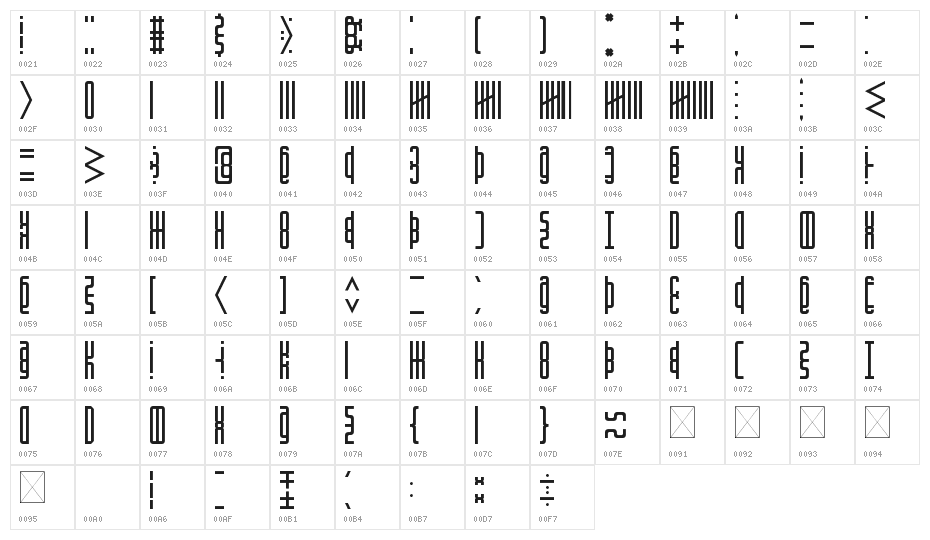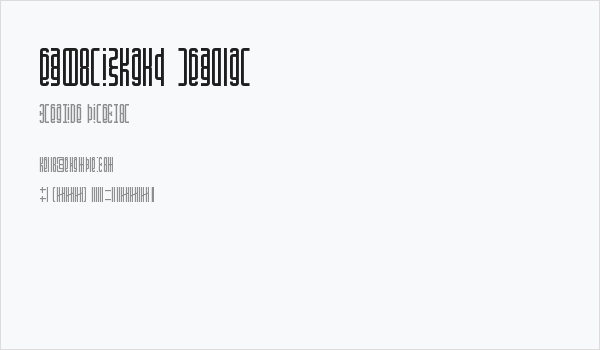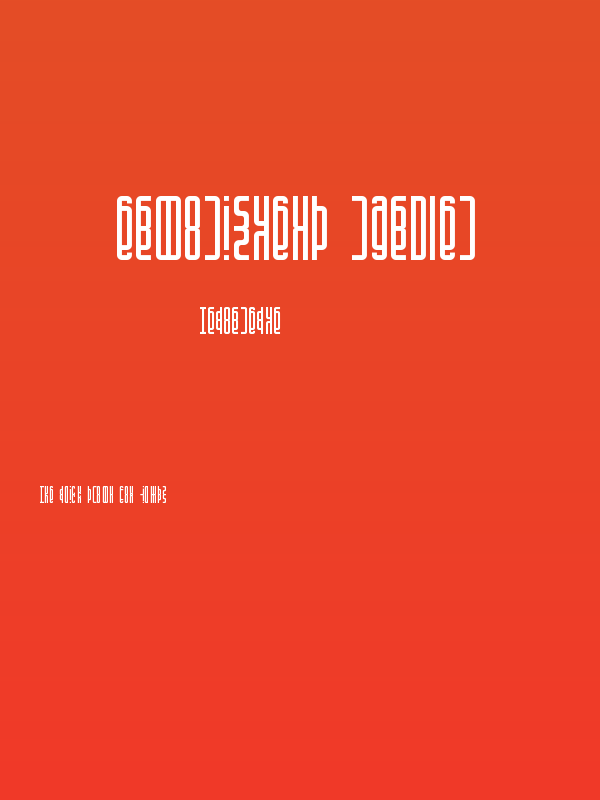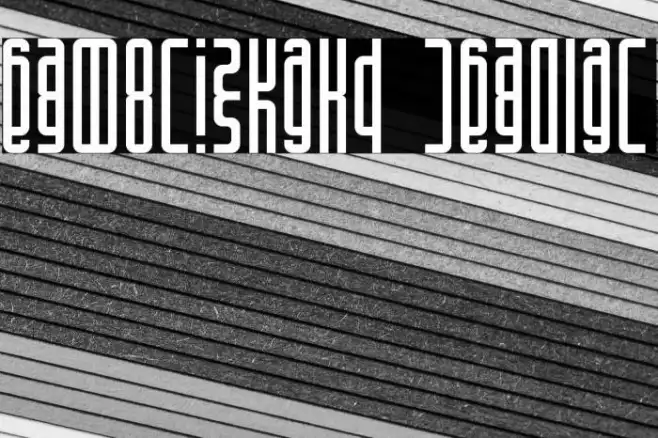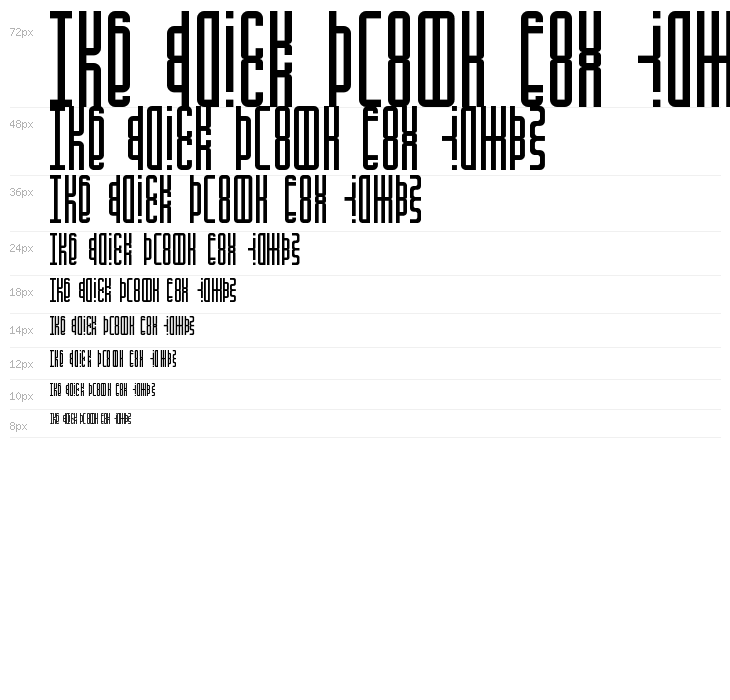
Agworishand Regular Font
Agworishand Regular Description
This font features a highly condensed and elongated style, characterized by its tall and narrow letterforms. The strokes are consistent in width, giving it a monoline appearance. The uppercase and lowercase letters maintain a uniform height, contributing to a cohesive and structured look. The font's geometric nature is evident in its straight lines and sharp angles, creating a modern and sleek aesthetic. The numerals and special characters follow the same design principles, ensuring a harmonious visual flow across all characters. This font's unique style makes it stand out, offering a distinctive and bold presence.
| Proposed Projects | Ideal for modern branding, posters, and editorial design where a bold statement is needed. |